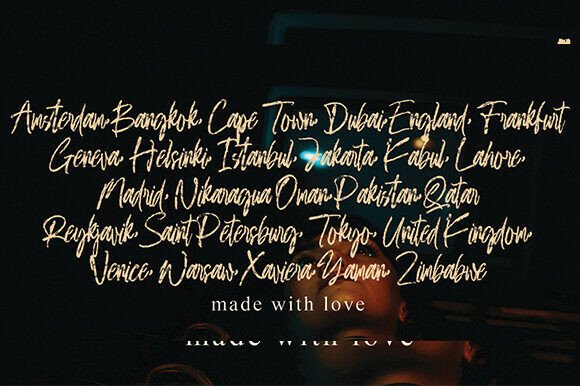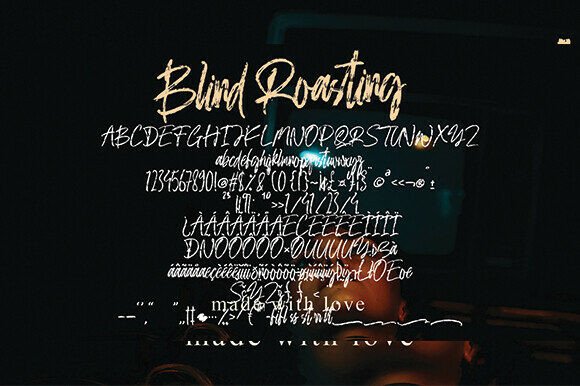
Introducing Blind Roasting Font: The Perfect Blend of Boldness and Artistry
In the world of typography, a font can make or break a design. It’s the perfect blend of form and function, where aesthetics meet readability. For designers and crafters looking for a font that exudes an expressive, hand-brushed aesthetic, Blind Roasting Font is the perfect choice. This decorative display font is designed to add a bold yet artistic touch to any project, making it ideal for branding, packaging, posters, and creative headlines.
The Unique Characteristics of Blind Roasting Font
Blind Roasting Font boasts dynamic, textured strokes that give it a natural, brush-like flow. This unique characteristic creates a sense of effortless energy, making it perfect for designs that need a bit of personality. The tall, slightly condensed letterforms, paired with irregular, organic edges, give it a raw, handcrafted charm that’s hard to resist. The font’s versatility allows it to transition seamlessly between modern, edgy designs and warm, artisanal projects.
Blind Roasting Font is perfect for a wide range of design projects, including:
- Branding: Create a bold and artistic brand identity with Blind Roasting Font. Its unique characteristics make it perfect for logos, business cards, and letterheads.
- Packaging: Add a touch of personality to your packaging designs with Blind Roasting Font. Its textured strokes and natural flow make it perfect for product labels, tags, and packaging materials.
- Posters: Create eye-catching posters with Blind Roasting Font. Its bold and artistic aesthetic makes it perfect for advertising, promotional, and event posters.
- Headlines: Add a touch of creativity to your headlines with Blind Roasting Font. Its dynamic strokes and natural flow make it perfect for blog posts, articles, and social media graphics.
PUA-Encoded for Easy Customization
Blind Roasting Font is PUA-encoded, ensuring effortless access to all glyphs, swashes, and alternate characters. This means you can customize your creations with ease, adding a touch of personality to your designs. With PUA encoding, you can:
- Access alternate characters: Switch between different character forms to add variety to your designs.
- Add swashes: Add a touch of elegance to your designs with swashes that can be used to connect letters or add a decorative touch.
- Customize glyphs: Access a range of glyphs to customize your designs and add a unique touch.
Why Choose Blind Roasting Font?
So why choose Blind Roasting Font for your design projects? Here are just a few reasons:
- Unique aesthetic: Blind Roasting Font boasts a unique, hand-brushed aesthetic that’s perfect for designs that need a bold yet artistic touch.
- Versatility: The font’s versatility allows it to transition seamlessly between modern, edgy designs and warm, artisanal projects.
- Easy customization: With PUA encoding, you can customize your creations with ease, adding a touch of personality to your designs.
- Legibility: Despite its bold and artistic aesthetic, Blind Roasting Font maintains legibility, making it perfect for designs that need to communicate a message.
In conclusion, Blind Roasting Font is the perfect choice for designers and crafters looking for a font that exudes an expressive, hand-brushed aesthetic. Its unique characteristics, versatility, and ease of customization make it perfect for a wide range of design projects. Whether you’re looking to create a bold and artistic brand identity, add a touch of personality to your packaging designs, or create eye-catching posters, Blind Roasting Font is the perfect choice.